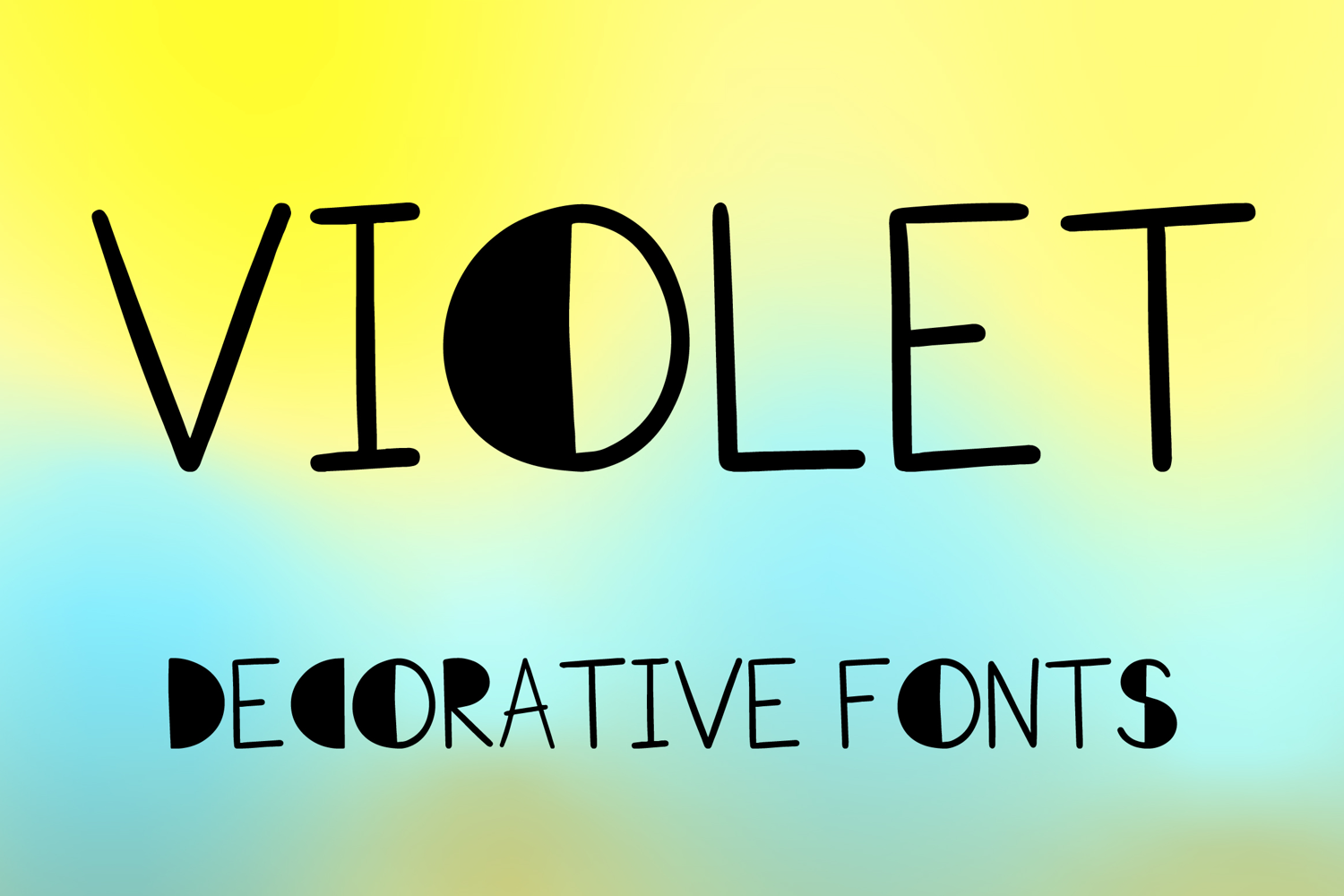
VIOLET
VIOLET is a clean decorative display font with a minimalist hand-drawn style and modern artistic charm. Its uppercase letterforms feature slim strokes, simple geometric forms, and distinctive half-filled circular details that create a stylish, playful, and eye-catching look. Designed with uppercase letters A–Z and numbers 0–9, VIOLET is perfect for logos, branding, posters, packaging, social media graphics, and creative projects that need a fresh and memorable statement.